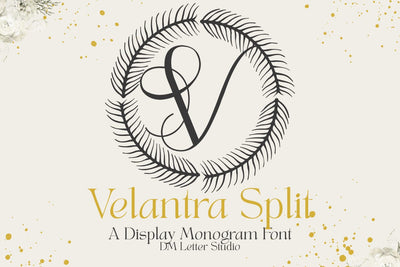
Velantra Monogram Font
Meet Velantra, the Monogram Font
Velantra Monogram Font turns simple initials into poised, boutique-ready emblems. Strokes feel smooth and confident. Generous counters keep tiny tags readable, while balanced proportions deliver a premium look at any size. Use it for wedding suites, boutique logos, keepsake gifts, foil seals, and elegant packaging. In addition, Velantra pairs beautifully with modern serifs and quiet humanist sans fonts, so layouts stay refined without extra effort.
Where this monogram font shines
Set single, double, or triple initials for logos, seals, menus, and place cards. Then frame them with laurel rings, oval borders, or thin rules to echo the graceful geometry. Since the metrics favor symmetry and clarity, you can compose centered marks in minutes. As a result, thumbnails pop on marketplaces, and your listings feel consistent from invitations to signage. Velantra also scales smoothly from jewelry cards to foyer displays.
Fast setup, polished results
Design tips for Velantra Monogram
Keep initials large and let white space breathe. Pair the headline monogram with a soft serif for body text or a clean sans for labels. Then, add micro shadows, a fine inner stroke, or a delicate frame to create depth. Because the forms are airy and balanced, textured papers and metallic accents raise perceived value. However, keep wording short so the monogram remains the hero—especially on small favors and tags.
Select stylistic alternates for key letters
Curves tuned for foil, letterpress, engraving, laser, and clean vinyl cutting
Why creators choose Velantra
You want elegance that reads at a glance and sells across many product types. Velantra Monogram Font delivers steady clarity, fast layout, and a cohesive brand voice from invites to packaging and gifts.